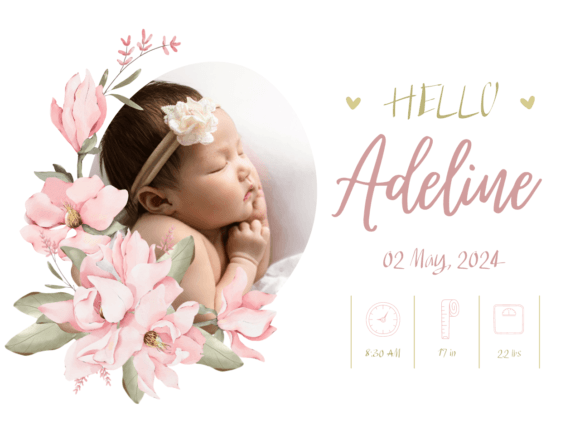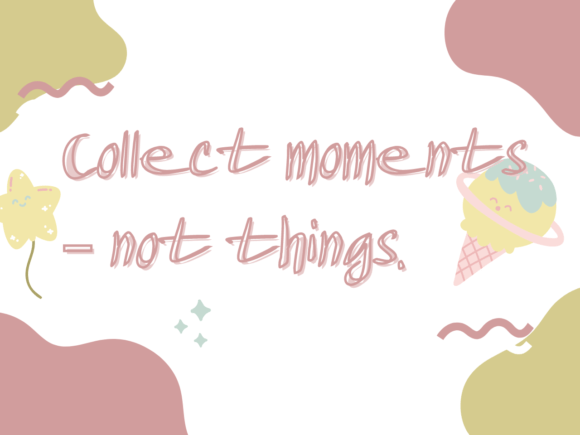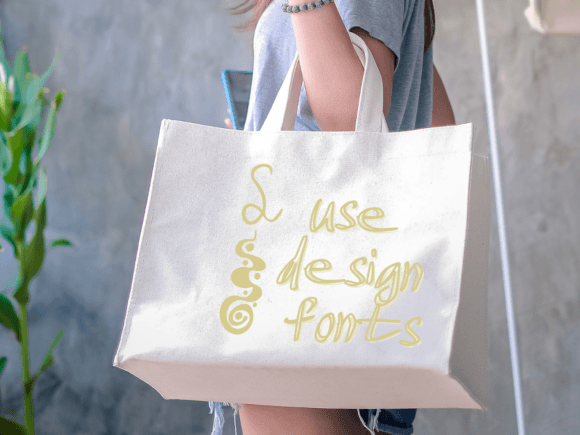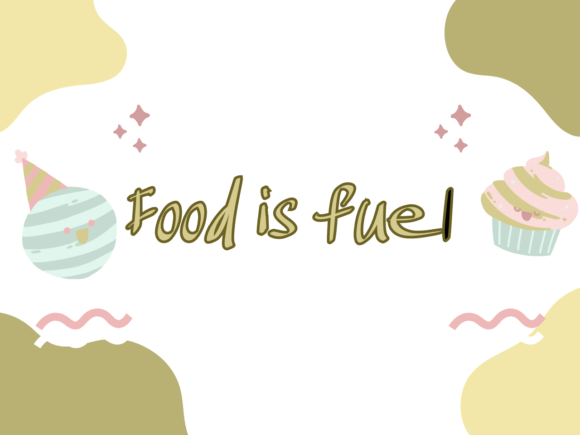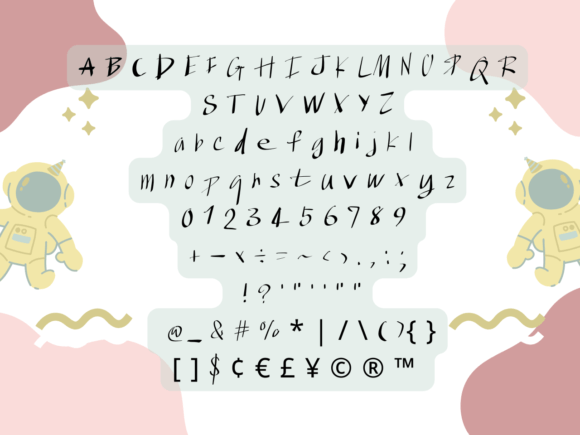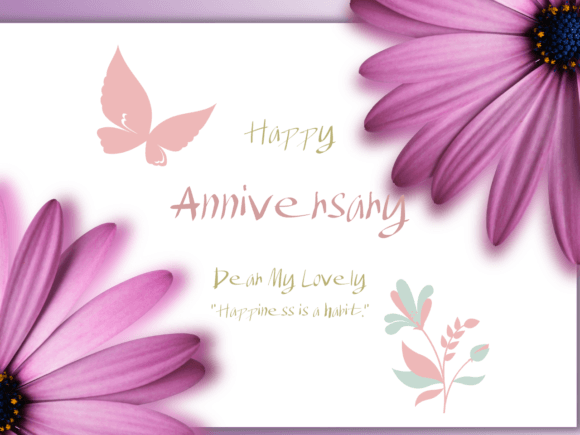
Discover the Charm of Ford Font: A Sweet and Friendly Handwritten Font
Are you a designer or crafter looking for a font that can add a personal touch to your projects? Look no further than Ford Font, a sweet and friendly handwritten font that’s perfect for a wide range of designs. With its natural and unique style, Ford Font is incredibly versatile and can be used in various contexts, from creative crafts to digital designs. The only limit is your imagination!
The Characteristics of Ford Font
Ford Font is a handwritten font that boasts a natural, effortless look. Its unique style is characterized by:
- Fluid strokes: Ford Font features smooth, flowing strokes that give it a friendly and approachable feel.
- Unique letterforms: Each letter in Ford Font has its own distinct personality, making it perfect for designs that require a personal touch.
- Natural texture: The font has a subtle texture that gives it a handmade feel, adding warmth and character to your designs.
Why Choose Ford Font?
So, why should you choose Ford Font for your next project? Here are just a few reasons:
- Versatility: Ford Font is incredibly versatile and can be used in a wide range of designs, from digital projects to handmade crafts.
- Ease of use: The font is easy to read and works well in various sizes, making it perfect for both headings and body text.
- Emotional connection: Ford Font’s friendly and approachable style helps create an emotional connection with your audience, making your designs more relatable and engaging.
Ford Font is a perfect fit for designers and crafters who want to add a personal touch to their projects. Here are some ideas for using Ford Font:
- Digital designs: Use Ford Font in digital projects such as social media graphics, blog posts, and website headers.
- Handmade crafts: Add a personal touch to your handmade crafts, such as journals, cards, and scrapbook pages.
- Branding and packaging: Use Ford Font to create unique and memorable branding and packaging designs.
Tips for Using Ford Font
Here are some tips for getting the most out of Ford Font:
- Experiment with colors: Ford Font works well with a variety of colors, so don’t be afraid to experiment and find the perfect combination for your design.
- Mix and match: Combine Ford Font with other fonts to create a unique and interesting visual effect.
- Pay attention to spacing: Make sure to adjust the spacing between letters and words to create a clean and easy-to-read design.
| Font Name | Ford Font |
| Author | Pukka De |